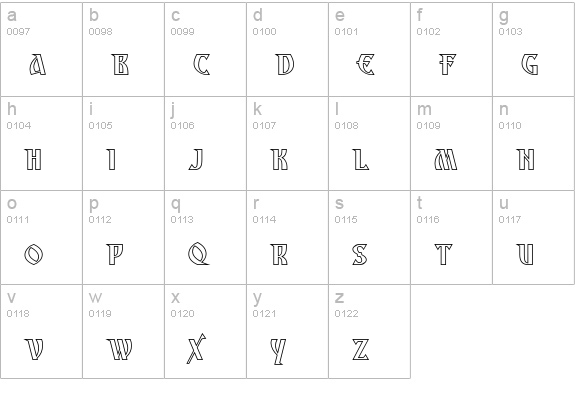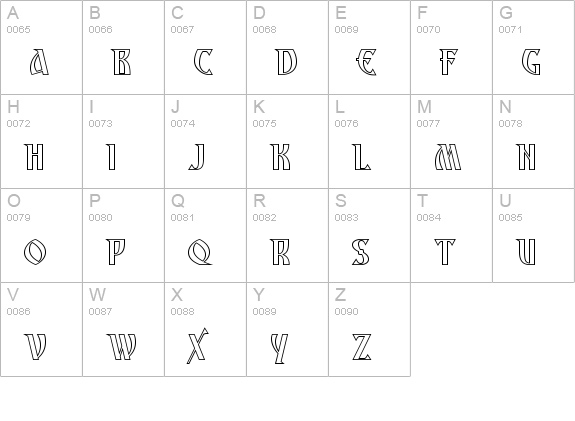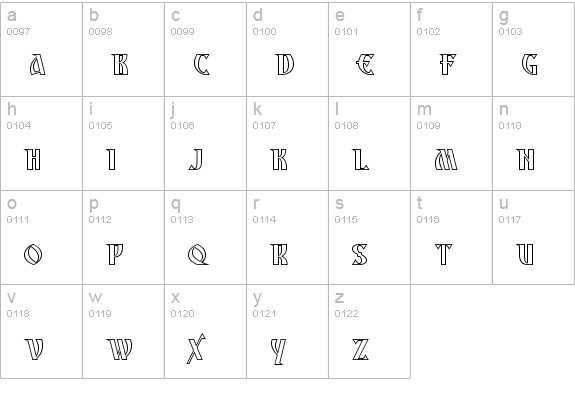
Archangel-Soul Font Details
Archangel-Soul font is a stunning display typeface that captures the essence of elegance and sophistication. With its intricate details and graceful curves, Archangel-Soul exudes a sense of grandeur and luxury. This font is perfect for creating eye-catching designs that command attention and leave a lasting impression. The best part is that Archangel-Soul font is completely free to download at FontsMarket.com. Whether you're working on a branding project, logo design, or any other creative endeavor, this font will elevate your work to new heights. Embrace the beauty and versatility of Archangel-Soul font and make your designs shine with its timeless charm. Download it now and unleash your creativity with this exquisite typeface.